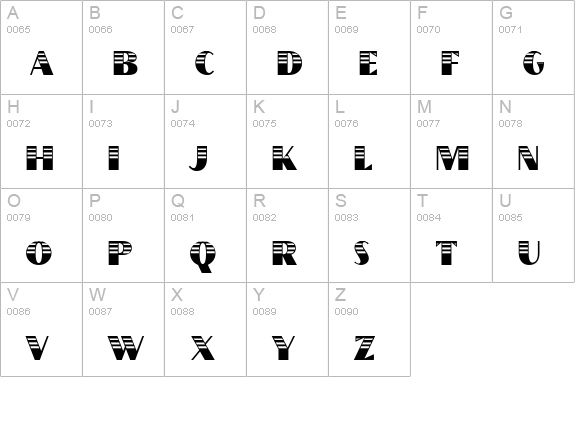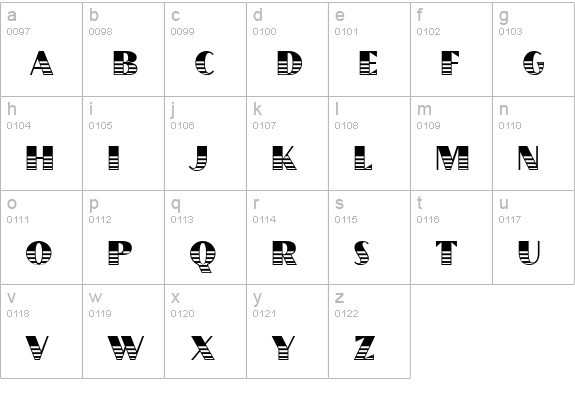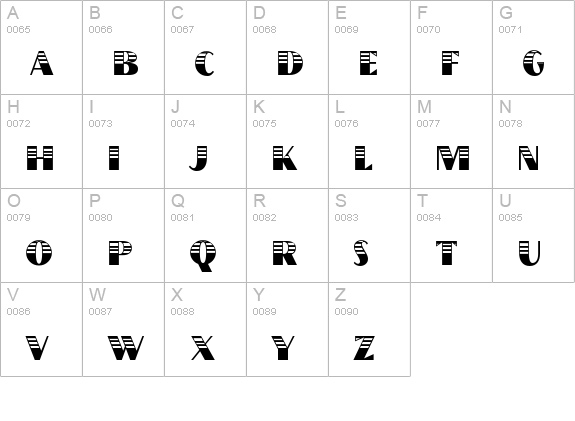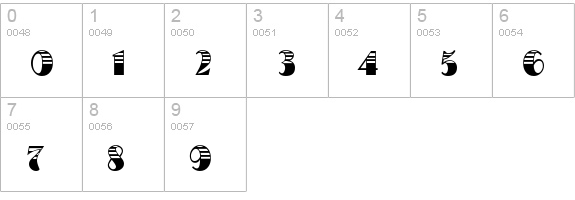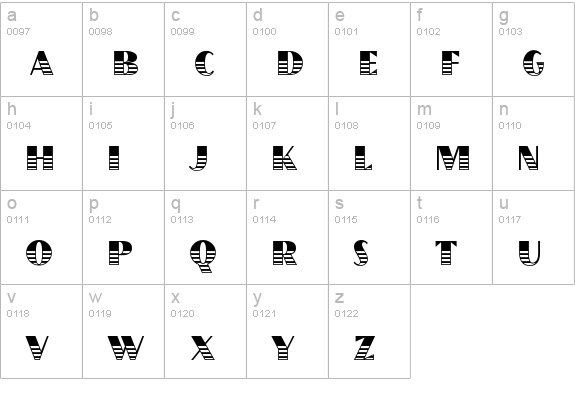
GrancMitSripes Font Details
Introducing GrancMitSripes font - a captivating, modern typeface that exudes sophistication and charm. With its sleek lines and elegant curves, this font is perfect for adding a touch of class to any design project. The unique combination of sharp edges and flowing strokes gives GrancMitSripes a dynamic and versatile look that is sure to make your text stand out. What's even better is that GrancMitSripes font is available for free download at FontsMarket.com! Whether you're working on a branding project, creating eye-catching posters, or designing stunning invitations, this font will add a touch of style and flair to your work. Don't miss out on the opportunity to enhance your designs with this beautiful and versatile typeface - download GrancMitSripes today and let your creativity shine!